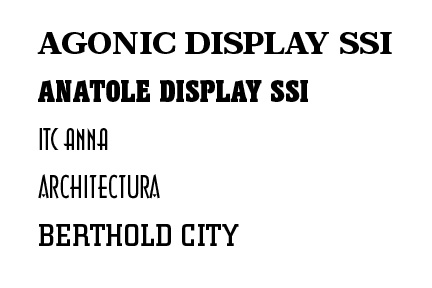
im trying to replicate this distinct style of poster, im having problems finding any similar fonts to those used in the above two pics, would value any info on any similar fonts - especially freee ones 🙂
Konspirancy Theory is a pretty good propaganda style font. Soviet is OK, but gets a little too cute trying to look Cyrillic.
here are a few I found in my library. As you can see I only started to get into the "Bs". Just keep in mind the fonts should be Bold and Condensed whatever you choose to give it the look you need. Almost any serif font like Garamond or Caslon and maybe Goudy can be used but keep in mind the "Look" you want appears to be dark, bold, condensed.
now for some constructive criticism😱 ...Display Typefaces like the one you used need some serious kearning.
One other unasked for constructive criticism -- consider another font for the "putting knowledge into heads" message. It's one thing to evoke a style, but you still want the message to be read and understood...
Looks like a faux-italic to me. Skewed... not a proper italic.
Yeah, I like the poster (glad the font helped) and I think you made a pretty good stab at creating at italic font for Konsp Theory, but work on the kerning issues (might have to break the text apart and do it by hand) and you'll have a much better product.